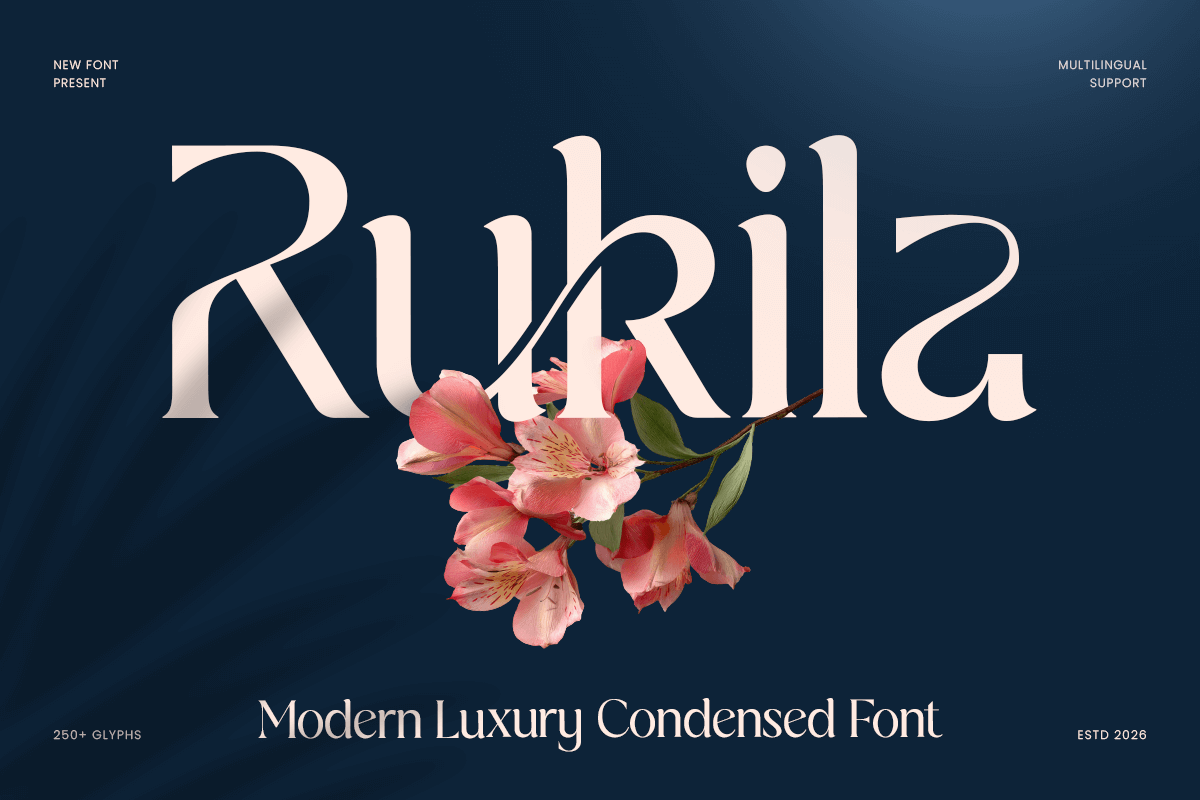
Rukila
-Modern Classy Condensed FontRukila - Modern Classy Condensed Font
Rukila is a modern luxury condensed font crafted to deliver premium elegance with a sharp, space-efficient silhouette. With tall proportions, refined structure, and a confident high-end rhythm, this typeface creates a sophisticated tone that feels modern, stylish, and instantly brand-ready.
Designed for impactful typography, Rukila works beautifully across logos, wordmarks, brand identity systems, magazine covers, editorial headlines, website headers, packaging, labels, signage, presentations, and upscale marketing visuals. Its condensed form helps you fit more content while keeping layouts clean, bold, and polished across both print and digital design.
Whether you’re creating a fashion identity, launching a premium product line, building boutique branding, or crafting editorial layouts with luxury presence, Rukila provides a condensed luxury foundation that makes every headline feel exclusive, refined, and unforgettable.
Inspiration Behind Rukila
RUKILA is inspired by contemporary luxury branding and modern editorial typography—where condensed proportions create strong hierarchy and premium presence. The design focuses on refined vertical rhythm, clean elegance, and upscale clarity to support high-end identities and fashion-forward visuals with a sleek, modern edge.
Rukila Font Features:
Modern luxury condensed letterforms with refined premium character
Perfect for logos, wordmarks, and high-end headline typography
Space-saving structure for clean layouts and strong hierarchy
High readability for editorials, packaging, and brand statements
Luxury logos, wordmarks, and premium brand identity systems
Fashion editorials, magazine covers, lookbooks, and headlines
Beauty, skincare, fragrance, jewelry, and boutique branding
Premium packaging, labels, signage, and modern marketing layouts
Social media campaigns, websites, presentations, and upscale promos
Elevate your headlines with Rukila—a modern luxury condensed font built for sleek, premium branding impact. ✨